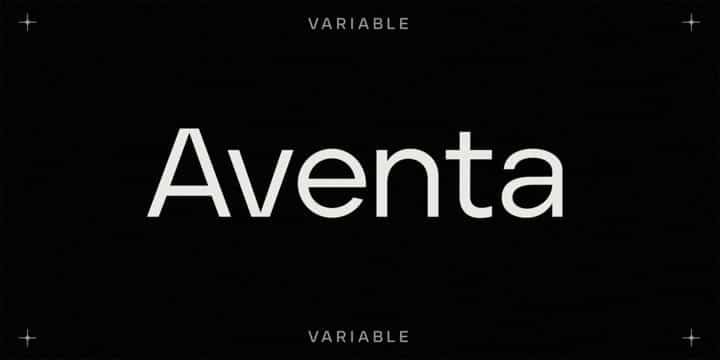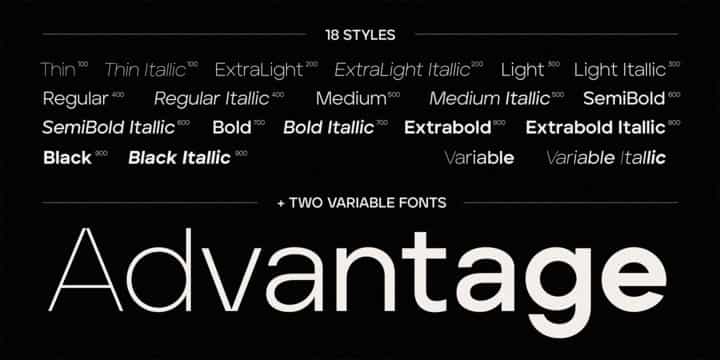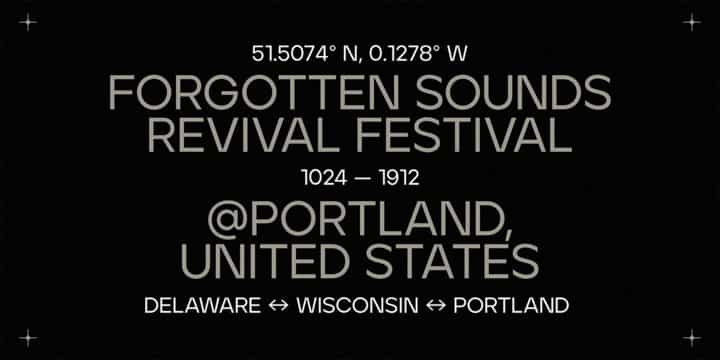
Aventa is an exciting geometric font with contemporary adornments. It’s formed by strong basic shapes, with clean circles and cuts intermixed in the style of modernity giving it its own voice – one that preserves the simplicity and elegance of classic geometric fonts with a fresh, updated look.